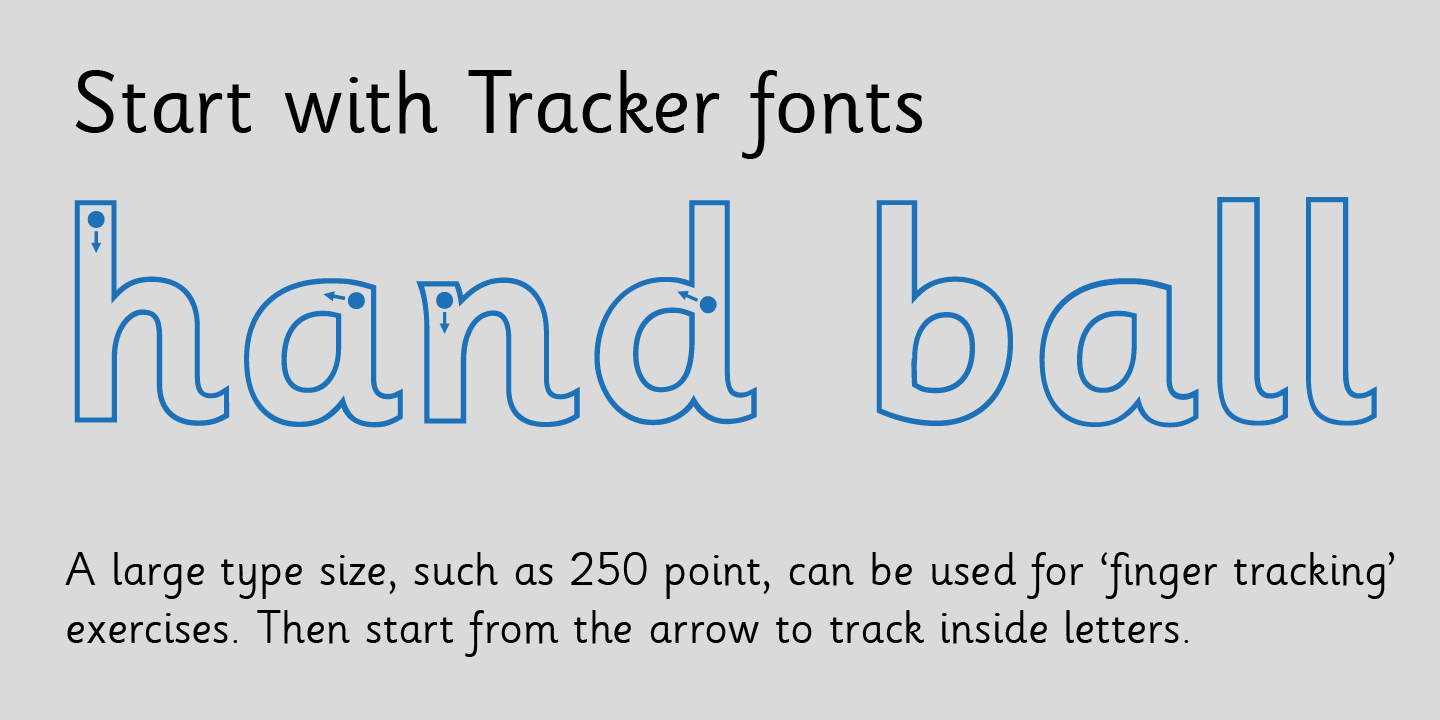
Sassoon Handwriting Starter Font is ideal for educational materials, children's books, learning worksheets, teaching resources, homework assignments, beginner writing practice, literacy programs, and school publications. This specialized typeface is specifically designed to support early learning and handwriting development in educational environments.
What makes Sassoon Handwriting Starter Font exciting is its pedagogical foundation based on extensive research in child development and handwriting education. The font features carefully designed letter formations that follow natural writing movements, making it easier for young learners to transition from print to cursive writing. Its educational approach revolutionizes how children learn and practice handwriting skills.
The Sassoon Handwriting Starter Font family includes various educational styles such as dotted versions for tracing practice, solid letters for reading, joined-up variations for cursive learning, and special characters with directional guides. These specialized options provide comprehensive support for different stages of handwriting development.
This research-based typeface transforms educational typography by prioritizing learning effectiveness over aesthetic appeal. Educators and educational publishers choose Sassoon Handwriting Starter Font Free Download for its proven ability to improve handwriting instruction outcomes. The font's scientific approach to letter design supports cognitive development and motor skill acquisition, making it an essential tool for modern educational materials that prioritize effective learning methodologies and student success.